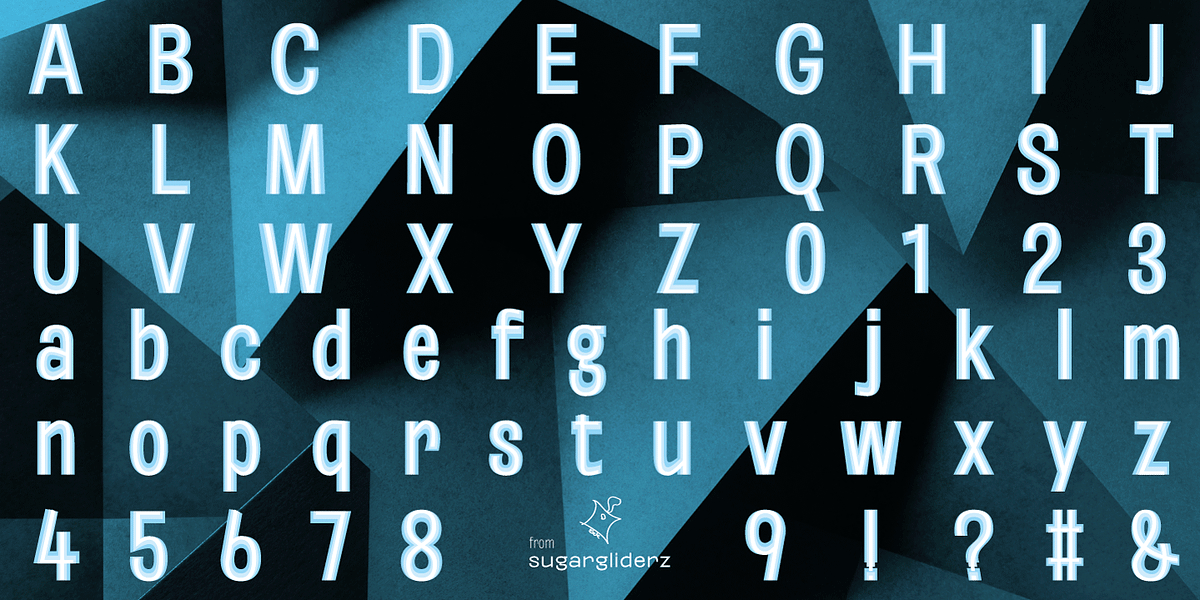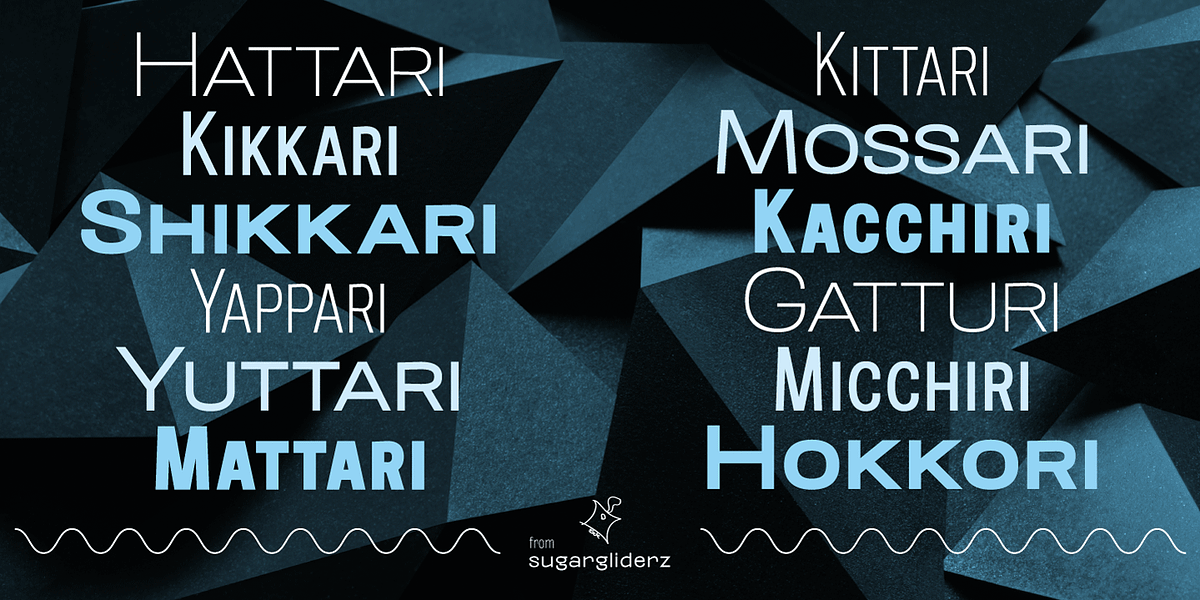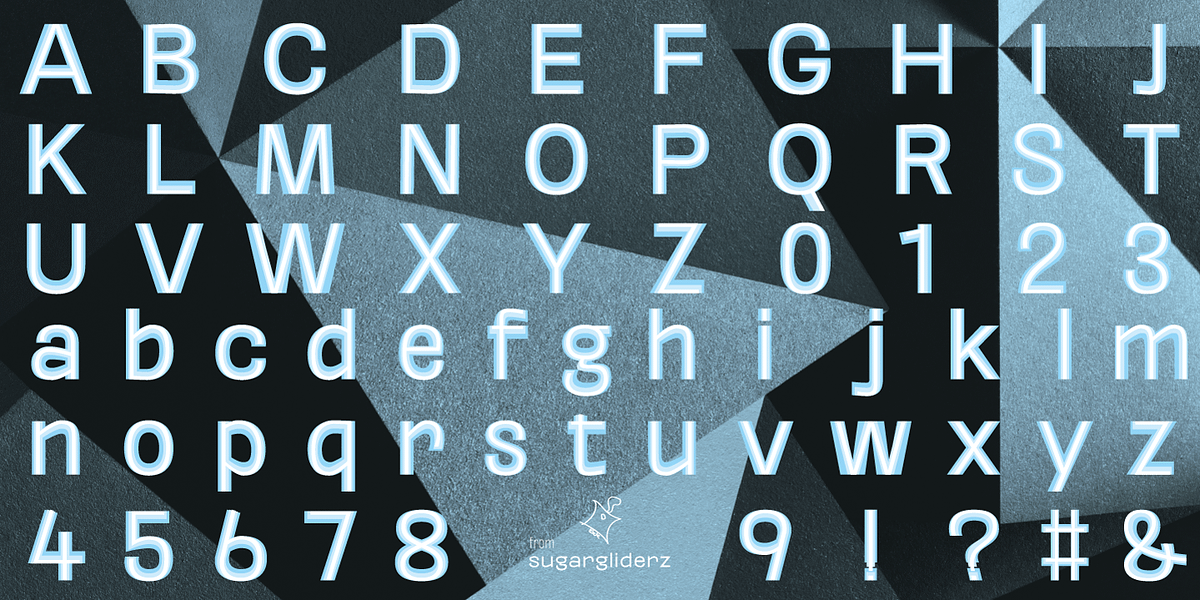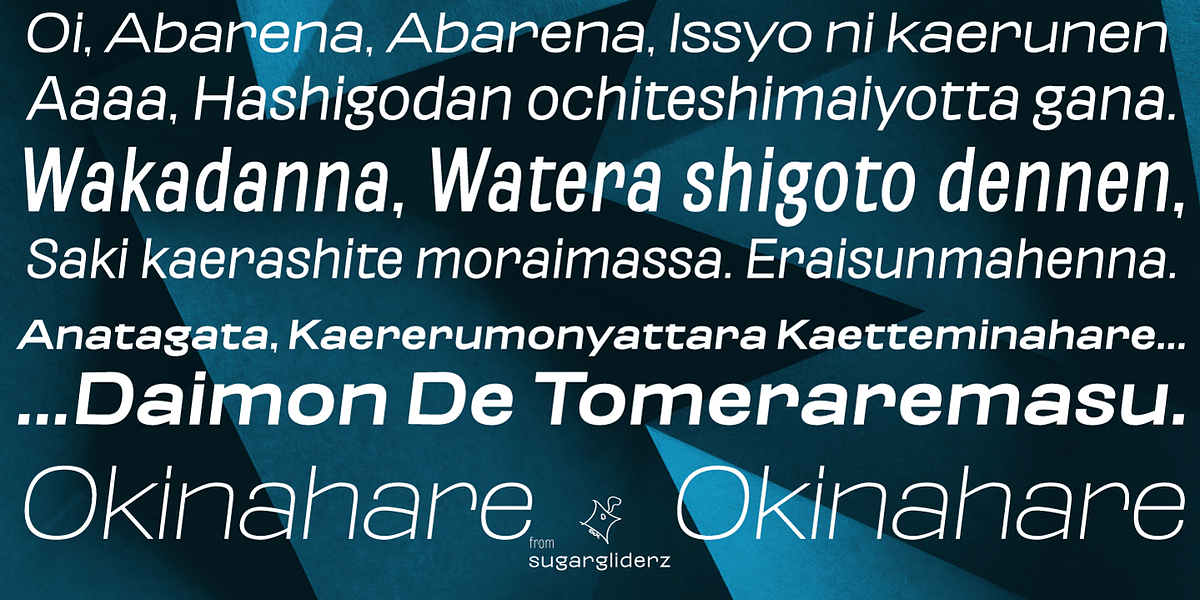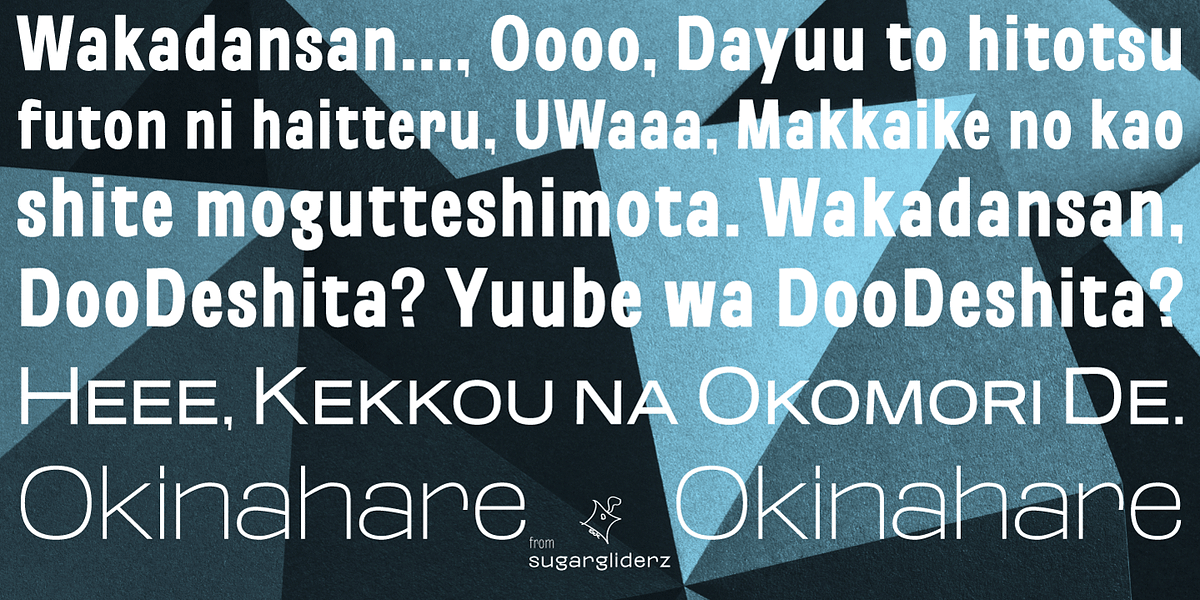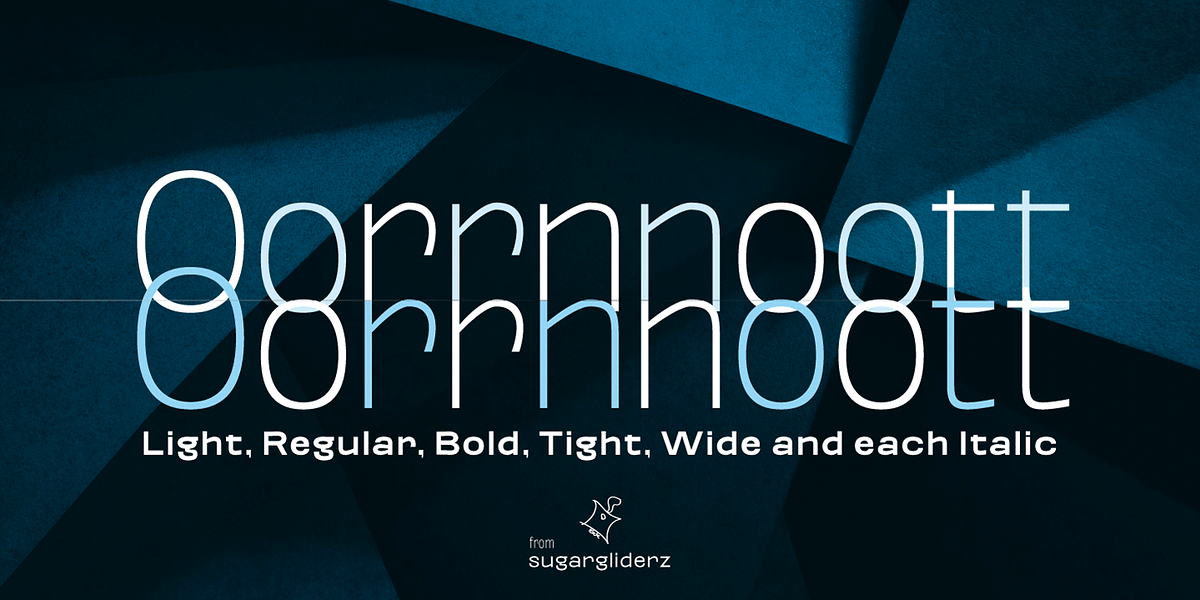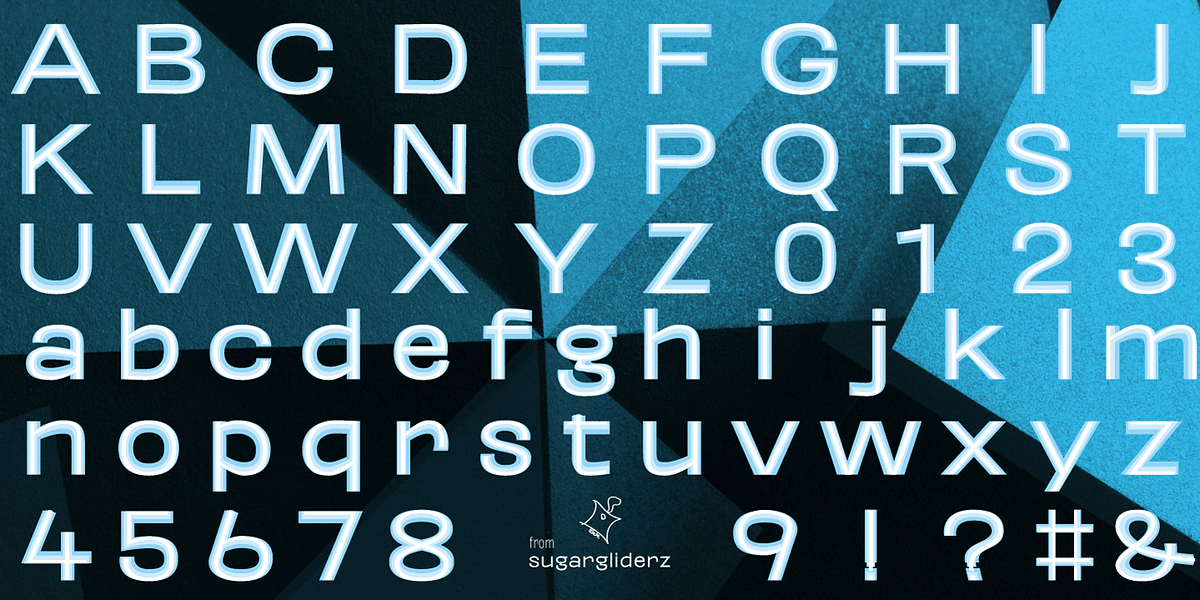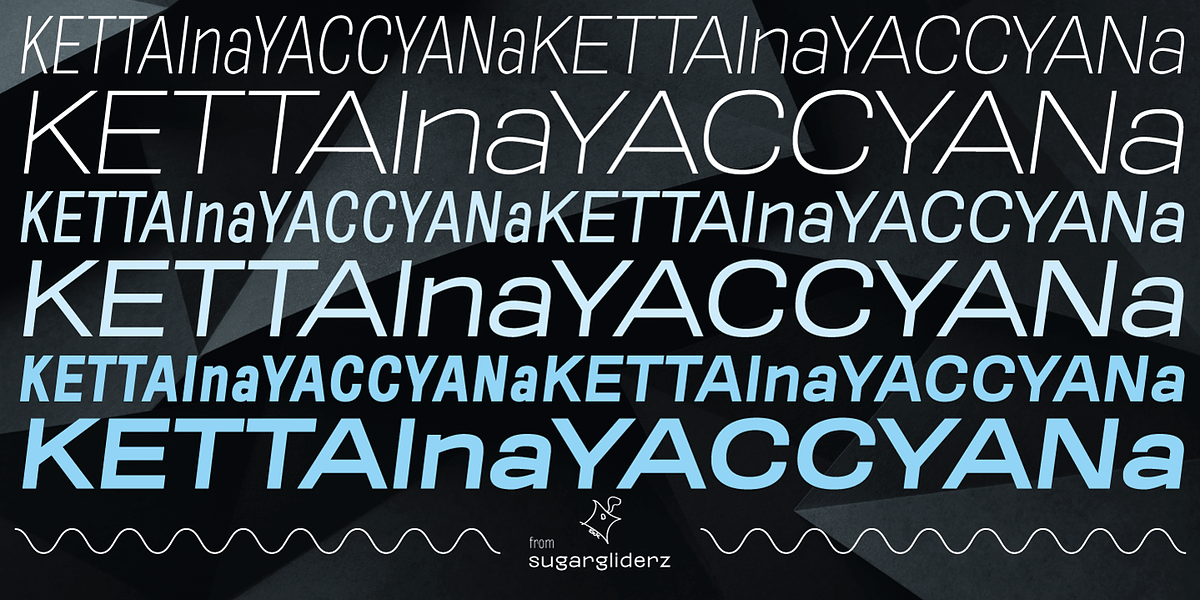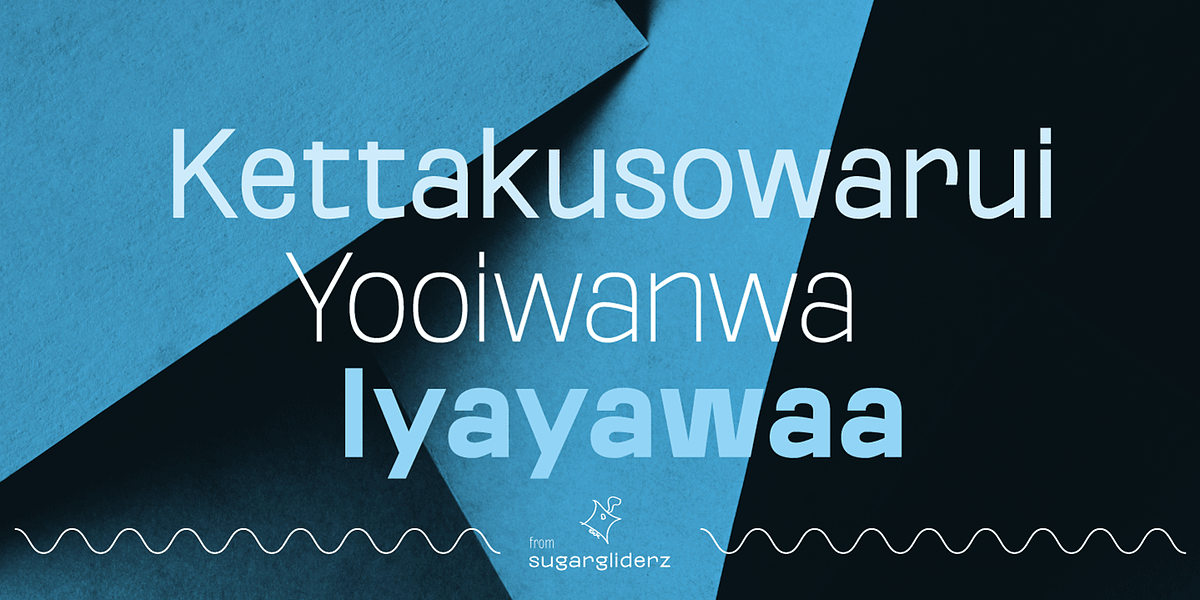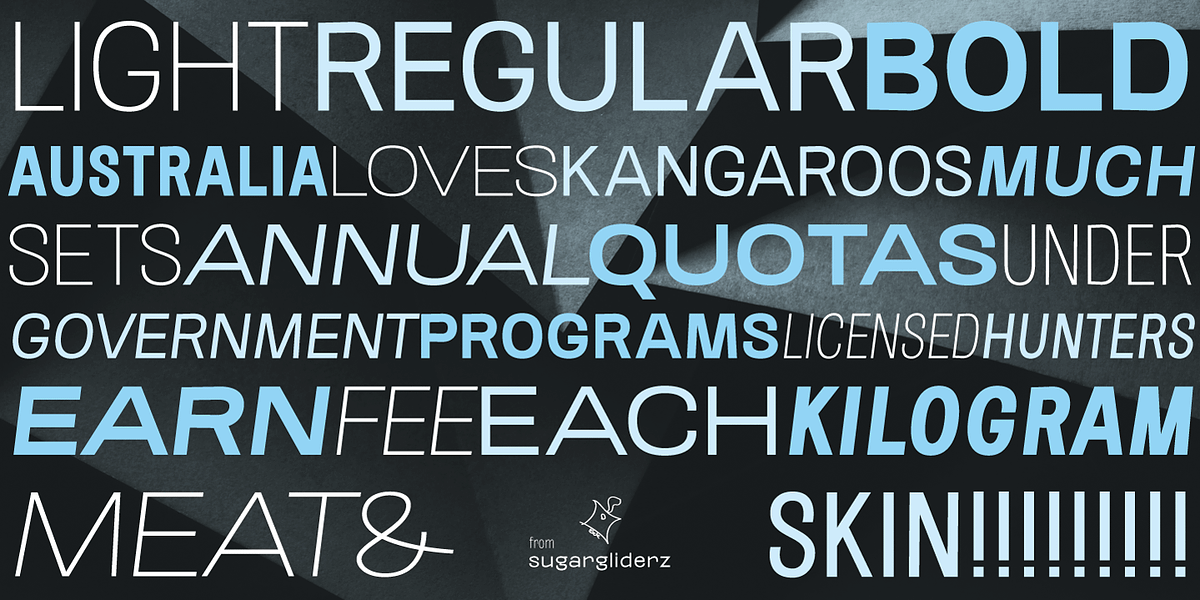
Oorrnnoott
The designer describes 'Oorrnnoott' as a 'typical sans-serif font'. They originally intended it to be used for body text but suggest it is also suitable for headlines and eye-catching designs. It's characterized as a grotesque sans serif, indicating a design style with relatively simple geometric forms.